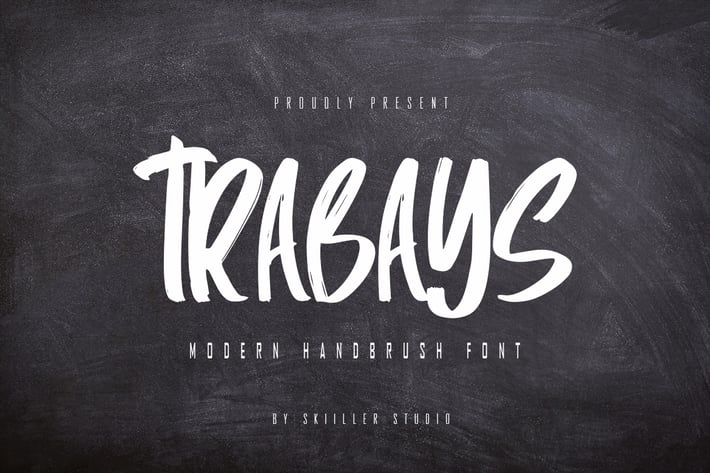
Trabays - Modern Handbrush Font
Trabays brush Font. It looks beautiful on a variety of designs requiring a personalized style, such as wedding invitations, thank you cards, weddings, greeting cards, logos and so on. This font is PUA encoded which means you can access all of the glyphs